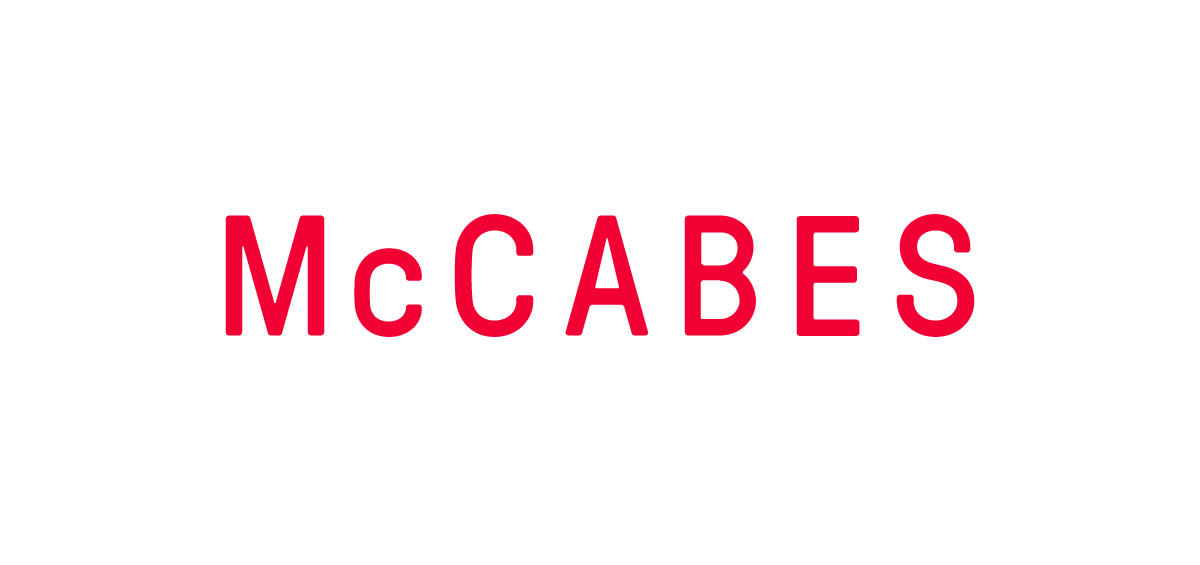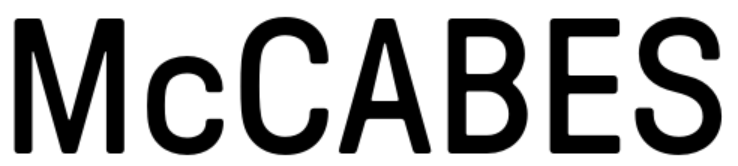
Looking for exact font match of McCABES
I inherited this logo from a local store and need to create brand extensions. Would like to find out the sans serif font used for McCABES - this M /C/B/S with rounded terminals like this. Thank you.McCABES-for-ID.jpg